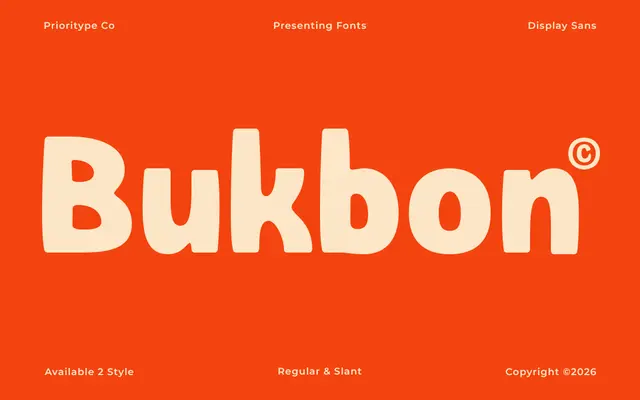
Bukbon
Prioritype · Prioritype Co · 2026
Bukbon specimen from Prioritype
A thick, rounded display face with a cheerful tone aimed at children's content, packaging and social media work.
Bukbon pairs heavy strokes with soft, smooth curves to produce a warm, approachable letterform suited to playful branding and promotional material. A slanted variant is included alongside the upright, giving two styles in total. The family covers OTF, TTF and WOFF formats but offers no weight range beyond its single bold cut.
A bold, rounded display face with thick strokes and soft curves, designed explicitly for decorative and expressive use rather than text setting.
Bukbon Slant